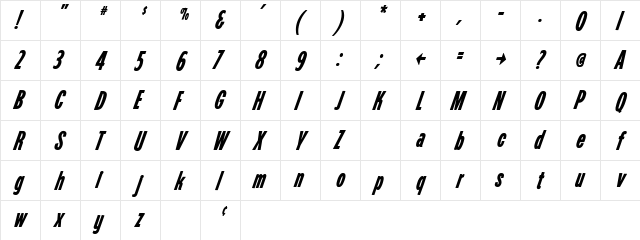
Electro Gothic HPLHS
Design Context for Electro Gothic Typeface
Electro Gothic takes a clean, functional approach — its unadorned letterforms prioritise legibility and work reliably across screen and print environments.
Font Pairing: Works well alongside a characterful serif or display font that can carry the expressive load while Electro Gothic handles the functional copy.
Pro Tip: Pair Electro Gothic with a display or serif font for headlines — its neutral character makes it an excellent supporting player in complex typographic systems.